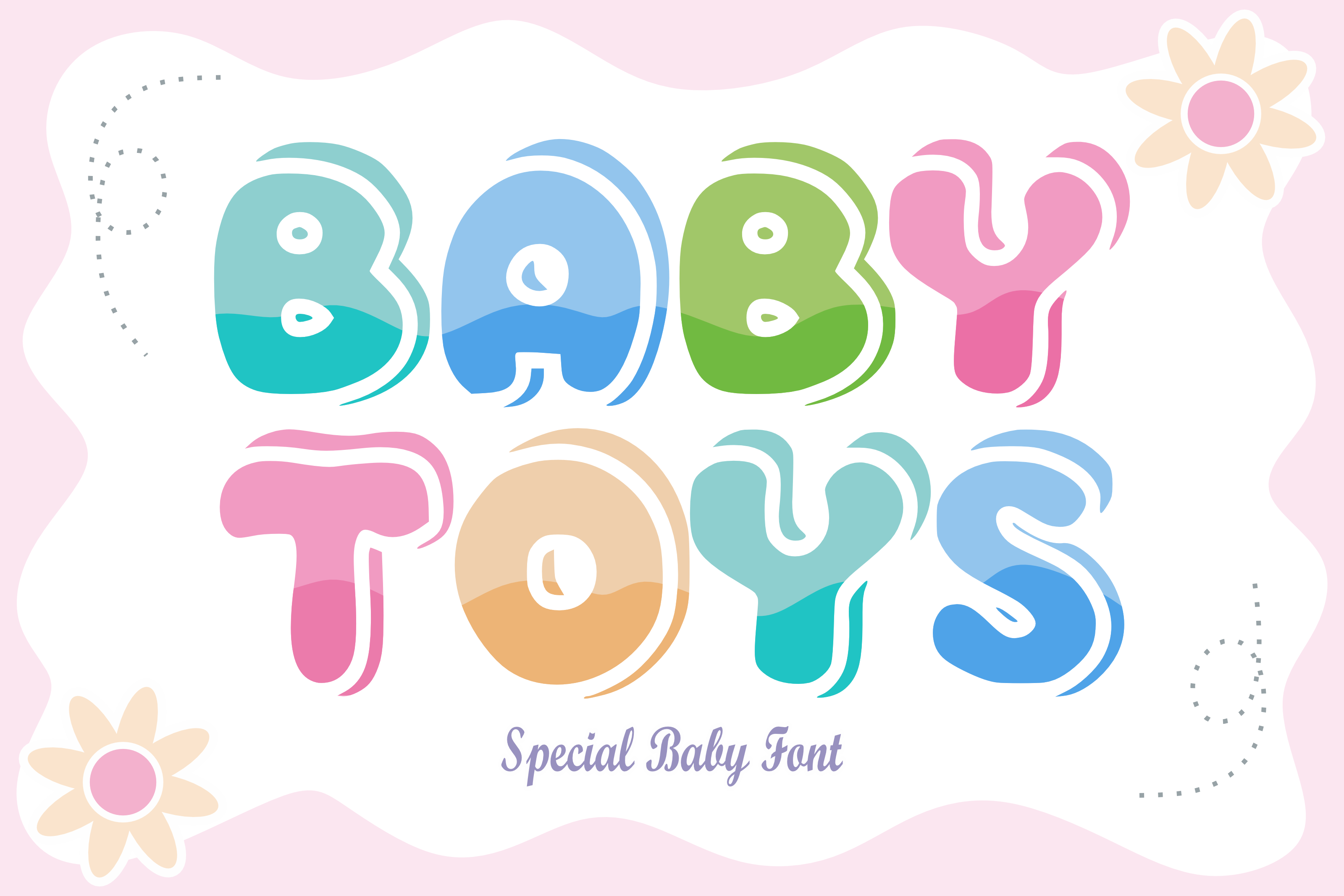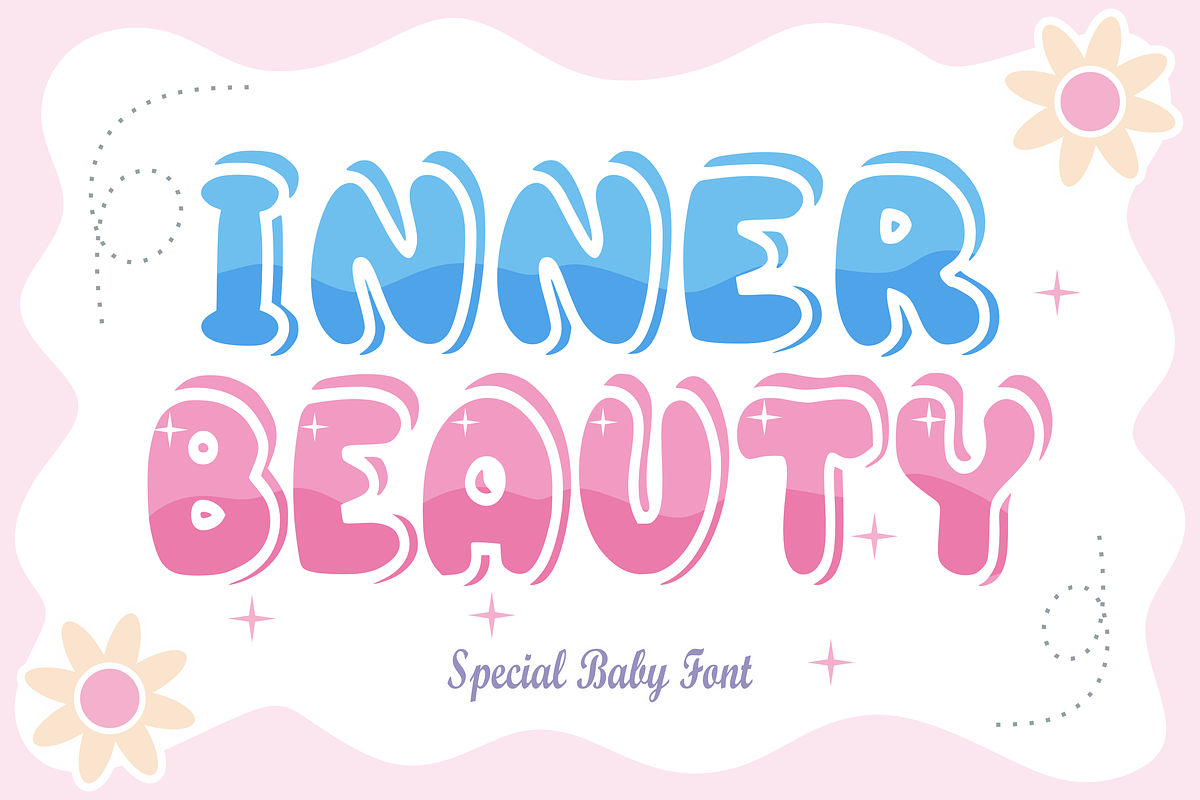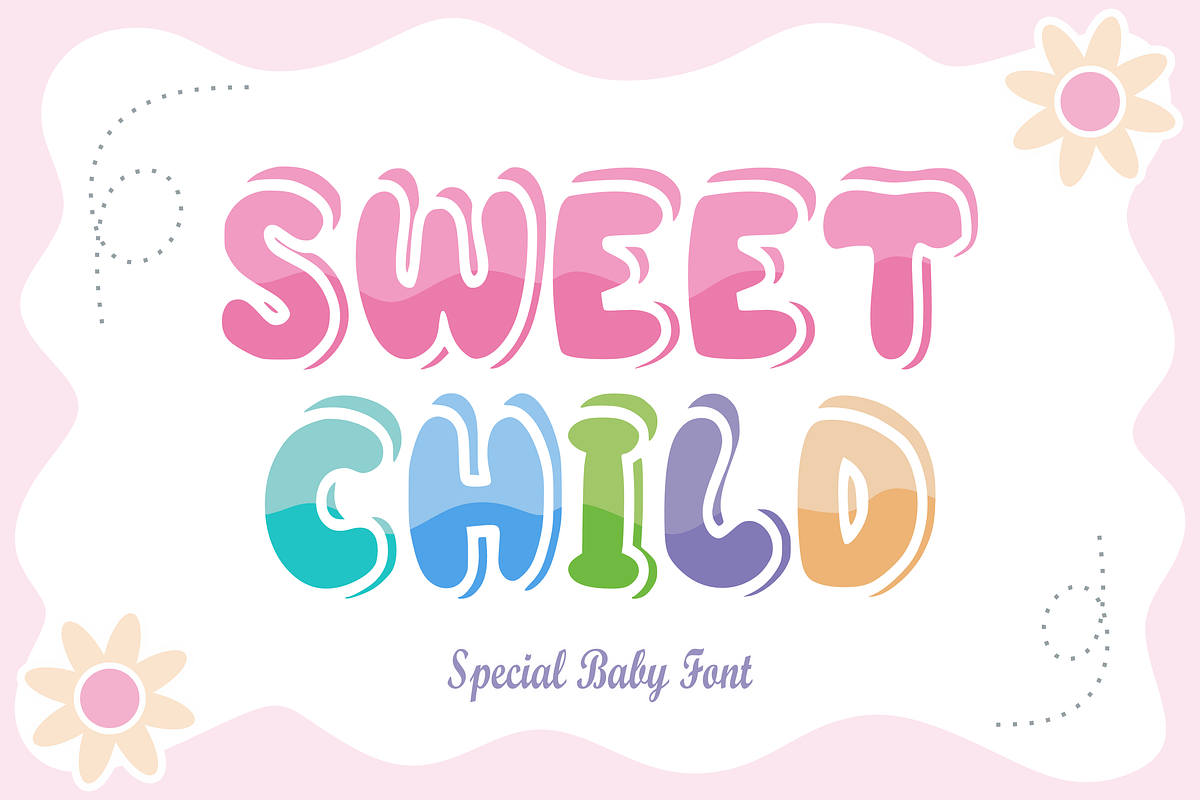
Baby Toys - Cartoon Font Types
Baby Toys is a fun and cheerful display font with bold, rounded letters. It has an energetic, baby-like style, perfect for designs that want to stand out and feel lively. Whether used in titles, posters, or creative projects, this font adds a sense of playfulness and confidence.